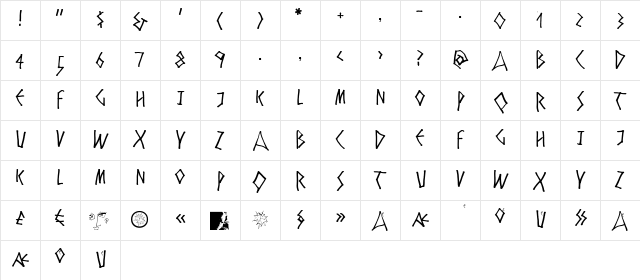
Zyprian Regular Font Preview
Zyprian Regular
Design Context for Zyprian Typeface
Zyprian is a composed and adaptable typeface that performs quietly and consistently across a wide range of design contexts.